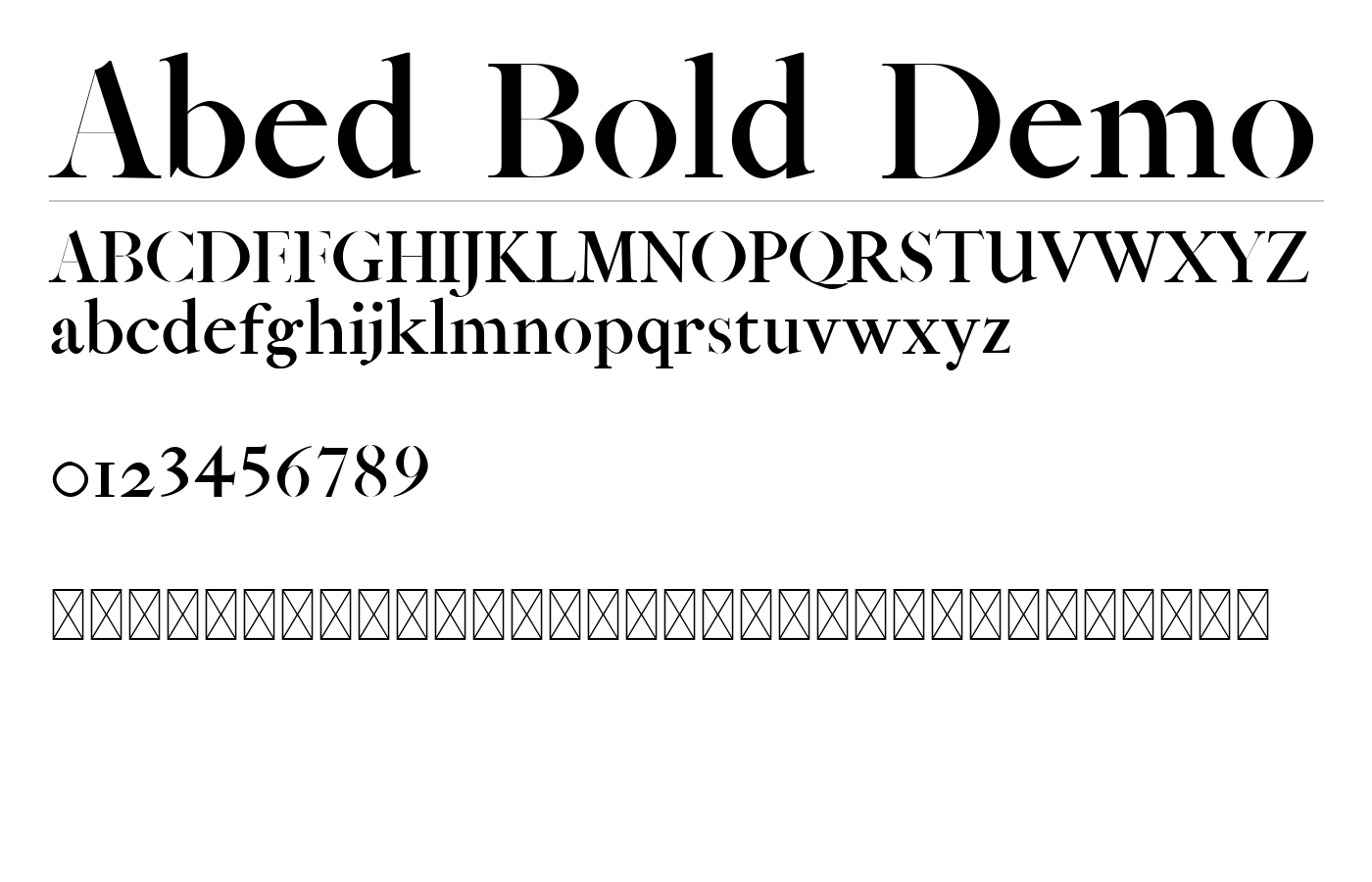
Abed Bold is a sophisticated serif font characterized by its high contrast between thick and thin strokes and elegant, sharp serifs. Its tall, refined letterforms and classic double-story structures imbue a sense of luxury and tradition, making it perfect for upscale branding, editorial design, and fashion-focused projects. This font’s bold weight ensures strong presence in headlines and logos, while its stylish details convey professionalism and timeless elegance.
Abed Bold Font
About Abed Bold Font
| Font family | Abed Bold Font |
| Designer | Faraz Ahmad |